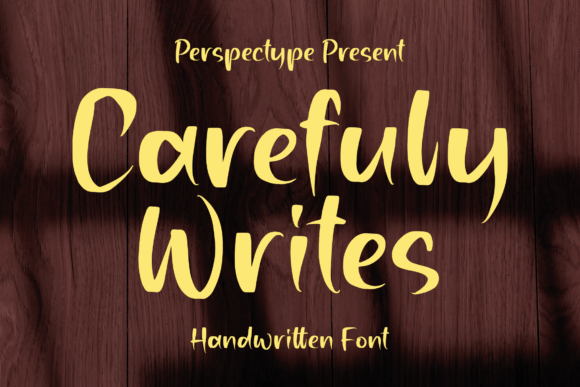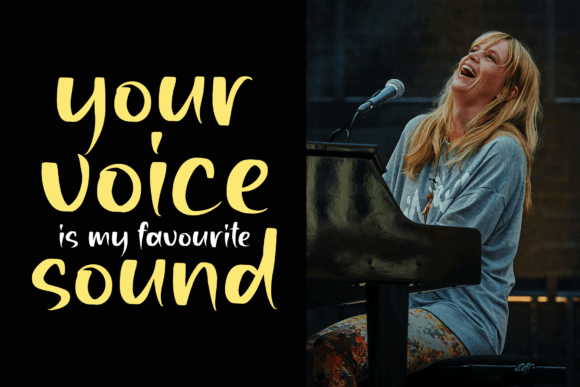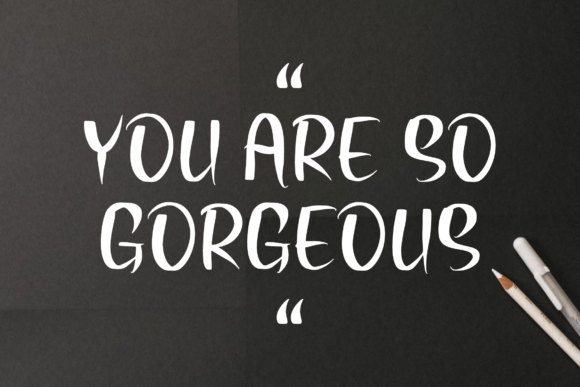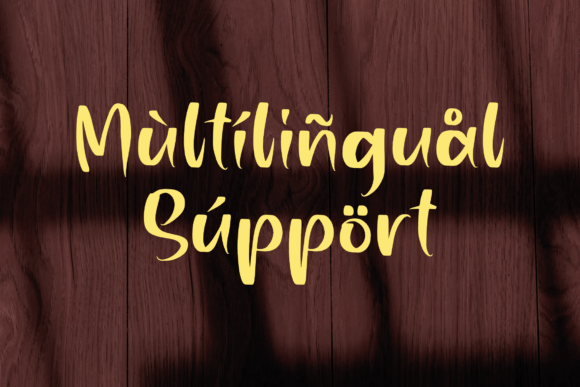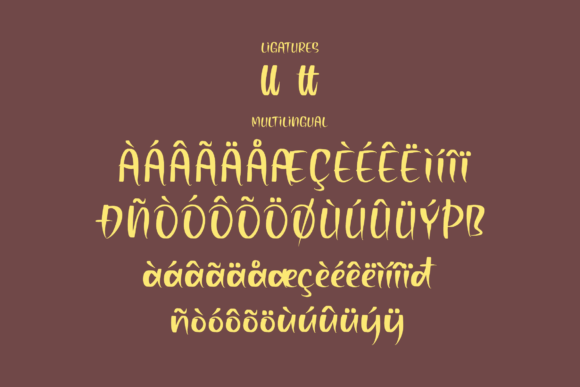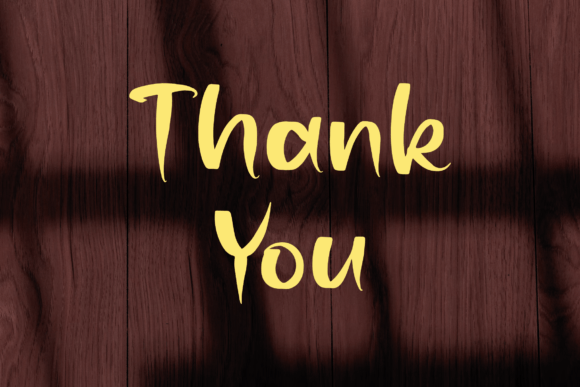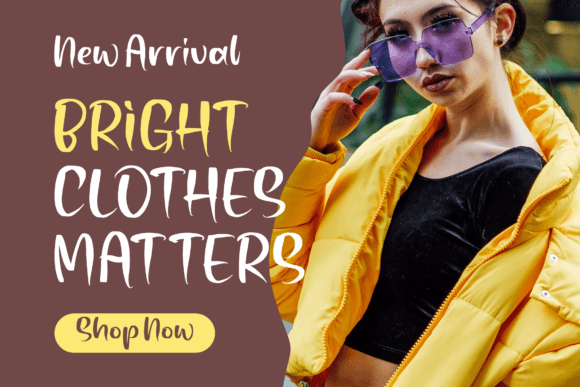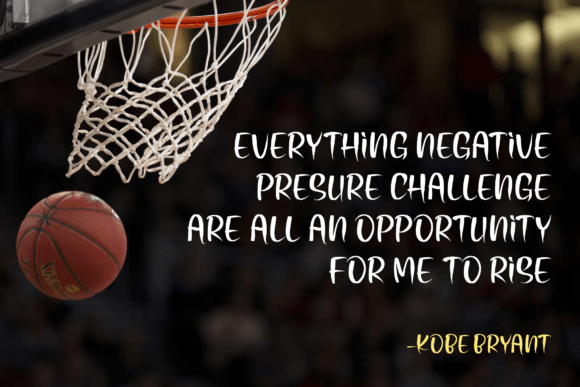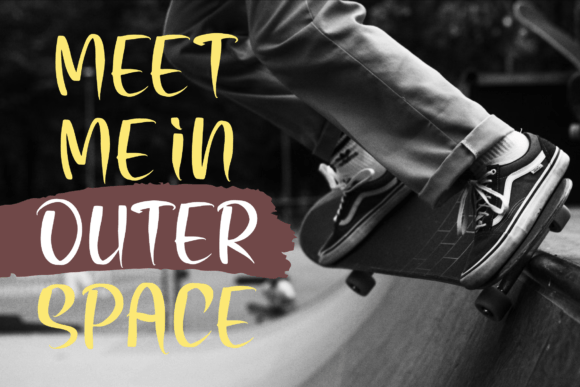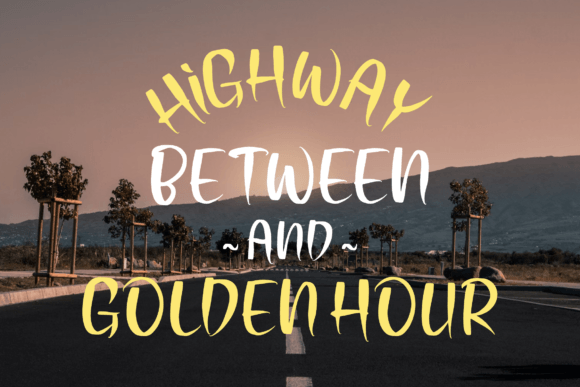
Carefuly Writes Font
Carefuly Writes Font Download – Enchanting Romantic Handwritten Script
The Carefuly Writes Font download is a graceful handwritten script that combines elegance with romantic charm. With its flowing strokes and enchanting details, this font adds beauty and sophistication to a wide variety of projects. Because of its versatile style, it works equally well for both personal and professional designs.
Enchanting and Romantic Handwritten Style
Carefuly Writes features smooth curves and well-balanced lines that create a refined handwritten look. As a result, it brings warmth and sophistication while keeping text easy to read. In addition, its romantic touch ensures that designs look timeless and appealing.
From wedding invitations to heartfelt greeting cards, this font creates a personal and memorable touch. It enhances messages with style and emotion. Therefore, it is an excellent choice for stationery and event projects.
Carefuly Writes Font Download for Posters and Logos
The Carefuly Writes Font download also performs beautifully in posters, logos, and branding campaigns. Its enchanting handwritten flow helps businesses and creatives present a stylish and approachable identity.
Versatility Across Creative Projects
This typeface adapts easily to packaging, headlines, social media graphics, and DIY crafts. In addition, it works across both digital and print platforms, making it reliable for modern creators.
Readability and Professional Balance
Some decorative fonts may sacrifice clarity, but Carefuly Writes maintains a strong balance between beauty and readability. As a result, it is effective in both bold titles and smaller text elements.
Why Add This Script Typeface to Your Collection?
The Carefuly WritesFont download is elegant, versatile, and easy to use. In other words, it suits greeting cards, invitations, logos, posters, and branding alike. Finally, it is a handwritten script that adds romance, creativity, and timeless sophistication to every project.